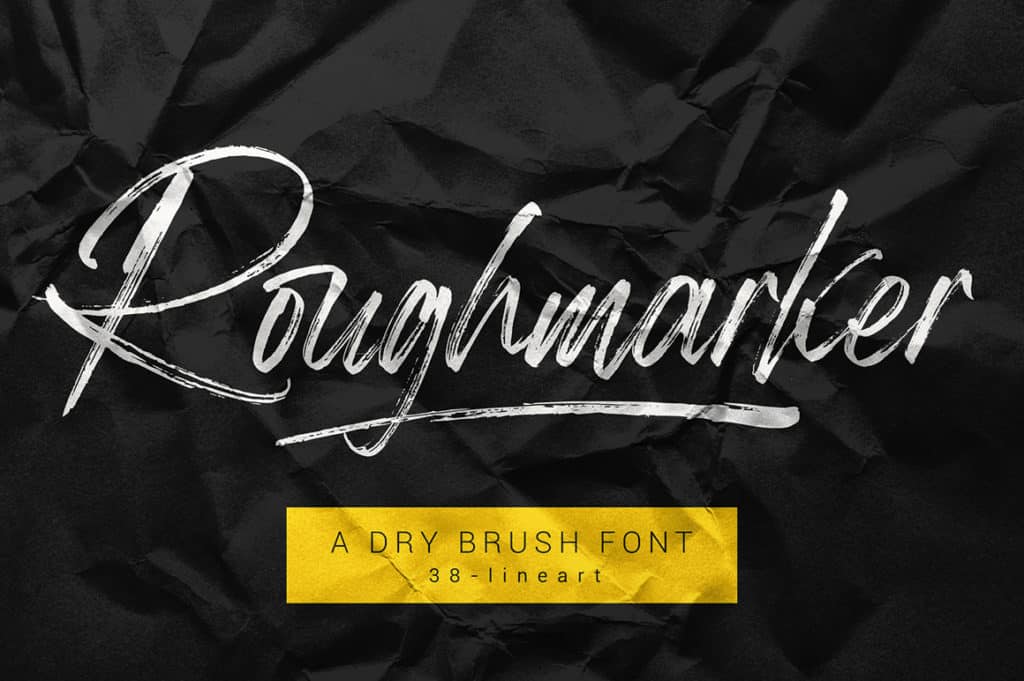
40+ Best Brush Script Fonts for Graphic Design, Branding & Logos (Free & Premium)
Are you on the lookout for all of the best brush script fonts? If you are, then we’ve got you covered!
There are thousands of fonts today, but nothing quite achieves the playfulness and intimacy of brush-inspired typography. While every typeface and its corresponding families sport their own charisma, brush script fonts are innately attractive because of their human appeal.
These fonts are personable, irregularly attractive, and reminiscent of careful handiwork, perfected by talented artists and calligraphers.
Despite studies citing that this art form dates back to ancient China, modern creatives and marketers find that the brush script aesthetic remains effective and youthful to this very day.
If this design vibe is up your alley, you’re in luck! For this article, we’re jotting down the best brush script fonts there are today to better help you streamline your picks.
10+ Top Brush Script Fonts for Design and Branding
40+ Best Brush Script Fonts for Graphic Design, Branding & Logos (Free & Premium)
1. Kingston Script Brush Font
Elegant and organic-feeling, Kingston is designed to fit a versatile range of projects from urban aesthetics to sophisticated branding initiatives.
It’s complete with full alternative characters to change the look of your design.
Additionally, this brush script font is the favorite of many artists and it’s clear why. We can see how this pick beautifully captures the hand-written essence of traditional wall letterings.
Hence, we recommend using it for posters, headers, and branding projects.
2. Lumpia Brush Script
Despite carrying the familiar handwritten paintbrush look, we think that the Lumpia Brush Script feels modern and clean. In our opinion, it’s perfect for formal marketing materials and conservative campaigns.
Furthermore, we’re confident that this contender will shine in scrapbooks, artsy quotes, coffee cups, and travel posters. It’s flexible enough to use however you wish!
3. South Coast Brush Font
Slender, cursive, and edgy, the South Coast Brush Font reminds us of beach signages one would see at luxury resorts. Hence, we think it’s suitable for wedding invitations and cute Pinterest texts.
If you’re looking for a font that is a strong choice for short headlines and happy events, we highly recommend this.
It’s sure to bring about a refreshing feel to your designs as well. Feel free to experiment with its 15 ligatures, swashes, and alternates.
4. Highest Praise Font
There’s a reason why its makers are calling the Highest Praise Font “bold and expressive”—and we agree! In our opinion, its thick and solid lines make it easy to read and its conservative bends aren’t overwhelming on the eyes.
Hence, we think it’s a balanced fusion of looking playful and professional. We can imagine a ton of design projects this font will be perfect for.
For example, it will look good on posters, labels, headers, and other marketing projects.
5. Boutique In Heaven
Isn’t Boutique In Heaven just heavenly? Optimizing thin lines and a worn-out ink aesthetic, in our opinion, this font feels like it really is hand-written.
If authentic-looking brush paint fonts are what you’re after, this is among the best finds on the list.
We recommend using this font for t-shirt designs, magazines, covers, social media, and greeting cards. Upon trying out the font, we found that it comes in regular and alternates.
It does require professional design software to run, like Adobe Illustrator, Photoshop, and Inkscape.
6. Blush Collective
There’s a reason the died-out pen look is such a hit. Because these kinds of fonts feel a tad more handwritten, it’s more able to add intimacy and warmth to design projects and initiatives.
That said, the Blush Collective should be a fantastic choice if this is the direction you’re going for.
7. Happy Letters
Fonts are amazing determiners of how projects should feel, so if joy is the energy you’re bent on curating, Happy Letters should be able to help you with that.
Complete with uppercase and lowercase letters, designers and marketers will find this contender easy to use.
8. Espander Handwritten Font
Another incredibly convincing handwritten typeface on the list is Espander Handwritten Font.
Available in regular and italic offerings, you’re free to choose whatever vibe you want your text to embody.
And although there are an extensive number of fonts available, in this article, we’ve done our best to list the best brush script fonts available to designers to date.
Brush script fonts are a great way to add an elegant yet lighthearted aesthetic to your designs. And although it may be confusing with the several options available picking the best brush script font depends entirely on what best suits your overall theme.